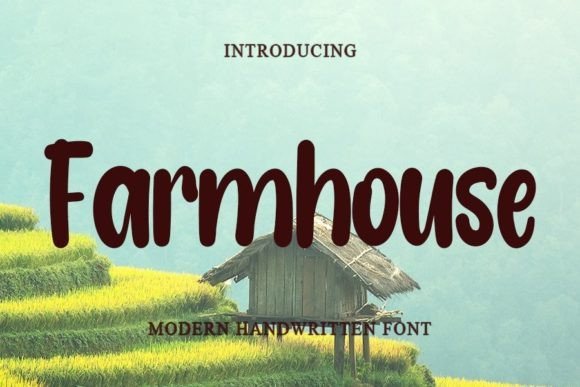
Enter the Farmhouse Font, a beautiful handwritten font that adds an elegant touch to any design project. Its unique and timeless style makes it perfect for a wide range of applications, from branding and marketing materials to digital products and print media. Whether you’re a seasoned designer or just starting out, the Farmhouse Font is an invaluable addition to your toolkit.
Farmhouse Font Key Features
- Font Family: Farmhouse is a unique, handwritten font designed to evoke a rustic, countryside feel.
- Character Count: The font contains over 400 characters, including uppercase and lowercase letters, numbers, and punctuation marks.
- Unique Characteristics: The font’s hand-drawn, brush-stroke design gives it a natural, organic feel, perfect for creating a warm and inviting atmosphere in designs.
Farmhouse Font Review
Overall, I think the Farmhouse Font is a charming and rustic typeface that’s perfect for projects with a country or vintage vibe. ✨ Here are some things that work well:
- It’s highly customizable, allowing for a range of spacing and size adjustments to suit your design needs.
- The font is well-suited for text-based projects, making it a great choice for blog posts, social media graphics, and other written content.
- The font’s unique character set and flair add a touch of personality to your designs, making them stand out from more generic fonts.
- ⚠️ The font may not be the best choice for complex, data-driven projects or those requiring precise typography.
- ⚠️ Some characters may not be perfectly formed or may have slight inconsistencies, which could be jarring for designers who value precision.
- ⚠️ The font’s rustic feel may not be to everyone’s taste, and it may not be suitable for projects that require a more modern or sleek aesthetic.
In conclusion, I think the Farmhouse Font is a great choice for designers who want to add a touch of country charm to their projects. While it may have some limitations, it’s a versatile and customizable font that’s perfect for a range of design applications.
To get the most out of Farmhouse Font, use it for rustic or vintage-themed designs, such as: